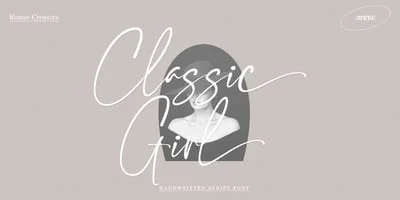
Classic Girl Regular Font
Classic Girl Regular Font is ideal for timeless design projects including vintage fashion boutiques, retro beauty salons, classic women's magazines, nostalgic lifestyle brands, vintage wedding planners, traditional charm schools, classic femininity campaigns, and elegant heritage marketing. This charming typeface works perfectly for vintage clothing stores, classic beauty products, retro homeware brands, traditional tea rooms, and projects that celebrate timeless feminine elegance and classic style principles.
What makes Classic Girl Regular Font exciting is its timeless feminine character that perfectly captures the essence of vintage charm and classic elegance. The font features graceful letterforms with retro styling that reflects the sophisticated beauty and refined grace of classic femininity. Its vintage design elements embody the spirit of timeless style and elegant tradition, making it perfect for projects that need to convey classic beauty, refined taste, and connection to vintage feminine heritage. The carefully crafted retro details create an atmosphere of nostalgic elegance and classic sophistication.
Classic Girl Regular Font comes in multiple family variations including vintage, elegant, retro, and timeless styles. Each weight maintains the distinctive classic character while offering different levels of vintage intensity and feminine presence. The font family includes retro alternates, classic ligatures, and vintage variations that provide designers with comprehensive options for creating truly elegant and authentically feminine typographic compositions that celebrate classic style.
Whether you're designing vintage branding, creating classic marketing materials, or developing timeless promotional graphics, Classic Girl Regular Font provides the perfect typographic foundation for projects that celebrate feminine excellence and vintage elegance. This delightful typeface transforms ordinary text into compelling expressions of classic beauty and timeless sophistication. Download this charming font today and style your design projects with the vintage femininity and classic elegance that captures the eternal appeal of timeless beauty and sophisticated grace.